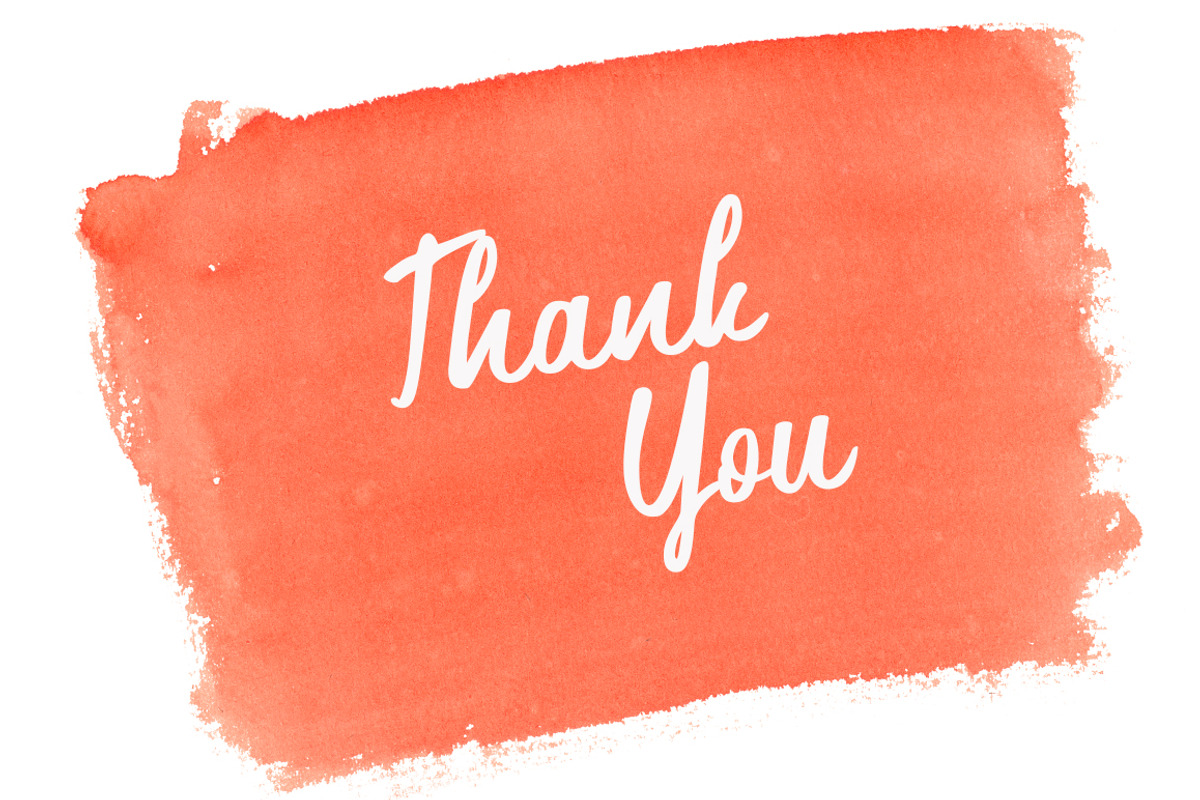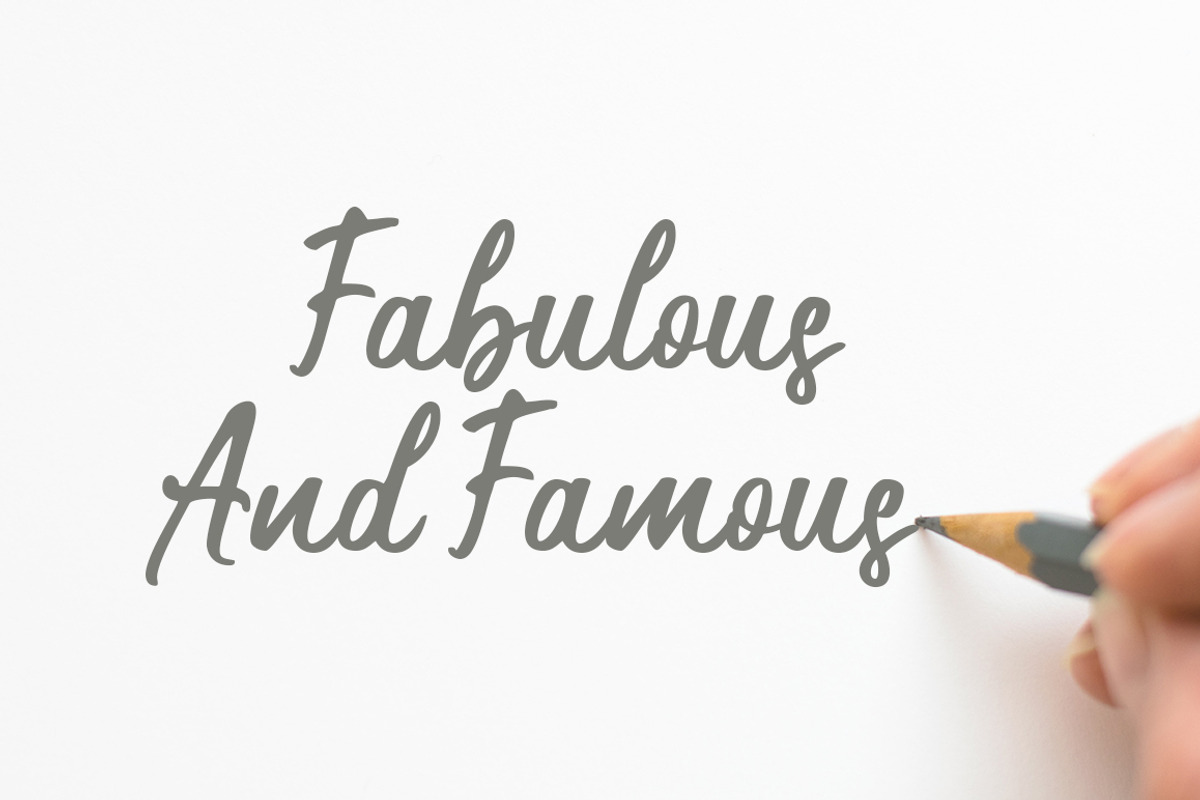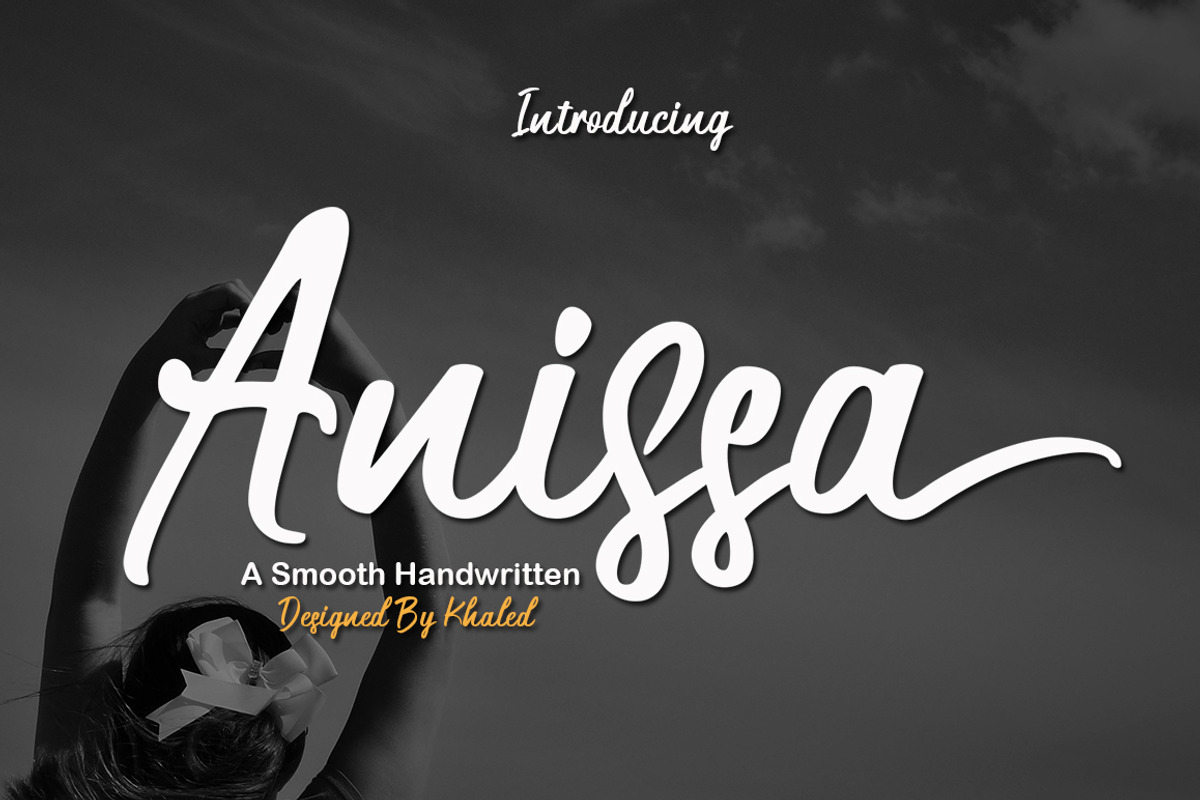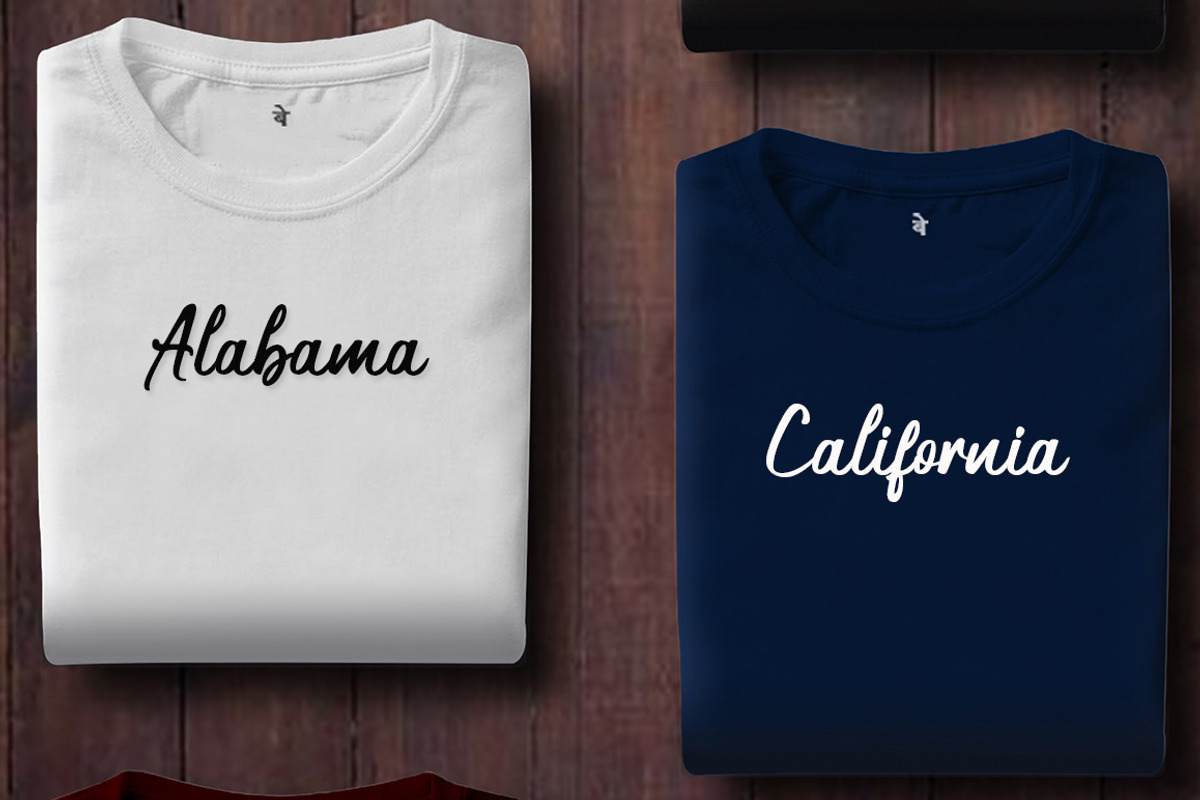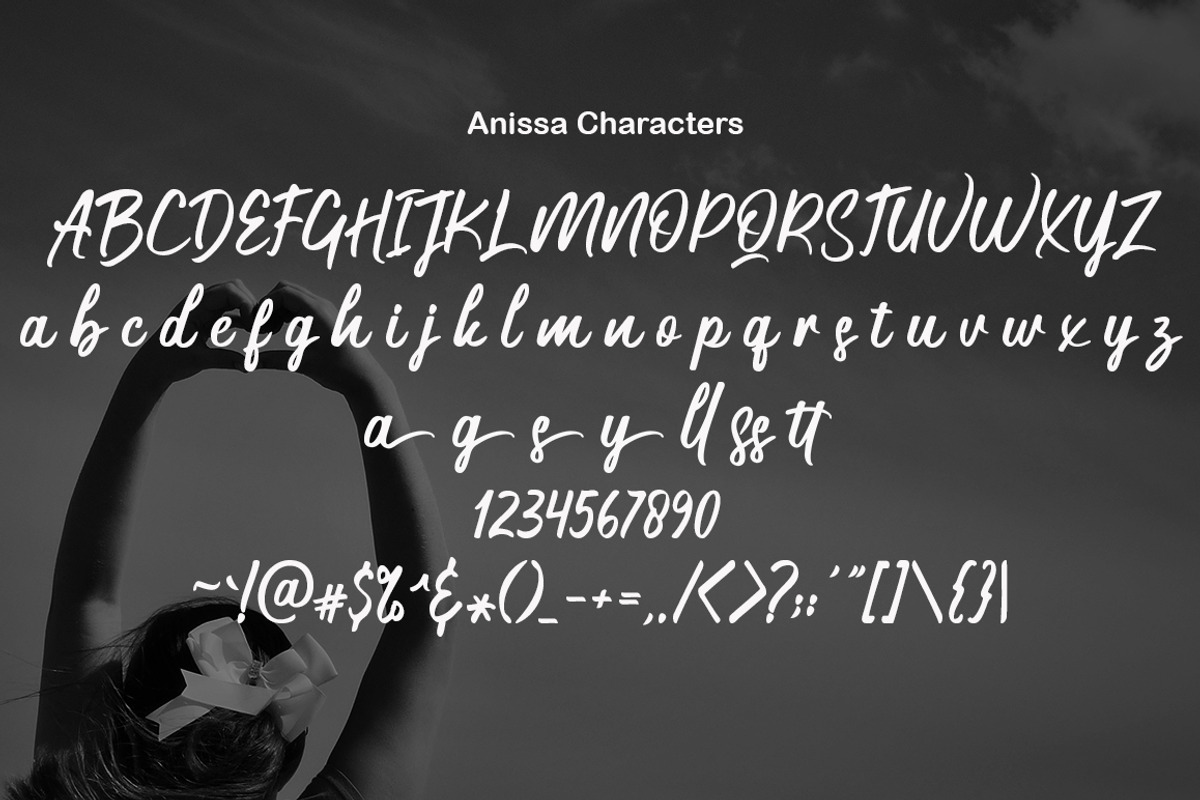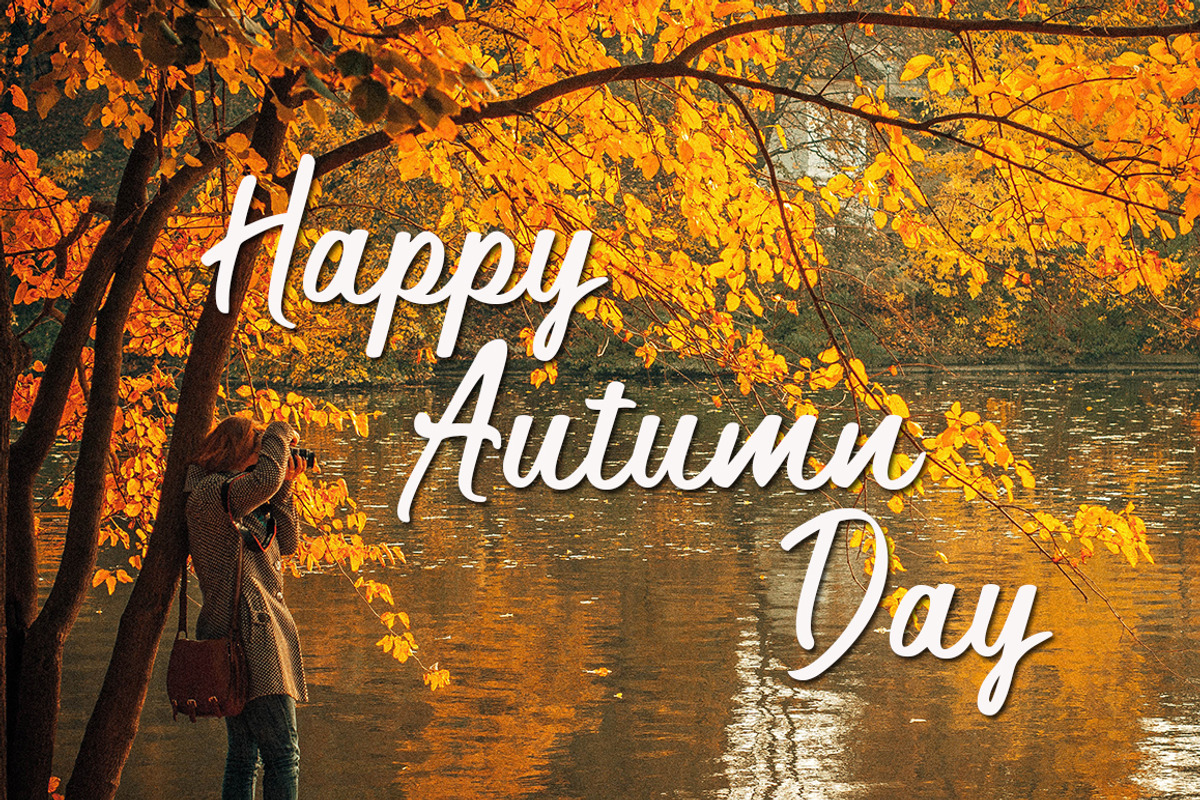
Anissa - Handwritten
Anissa is a modern smooth brush and natural handwritten font, organic, dynamic and energetic sytle.Can used for various purposes. such as the title, signature, logo, correspondence, wedding invitations, letterhead, signage, labels, newsletters, posters, badges, etc.